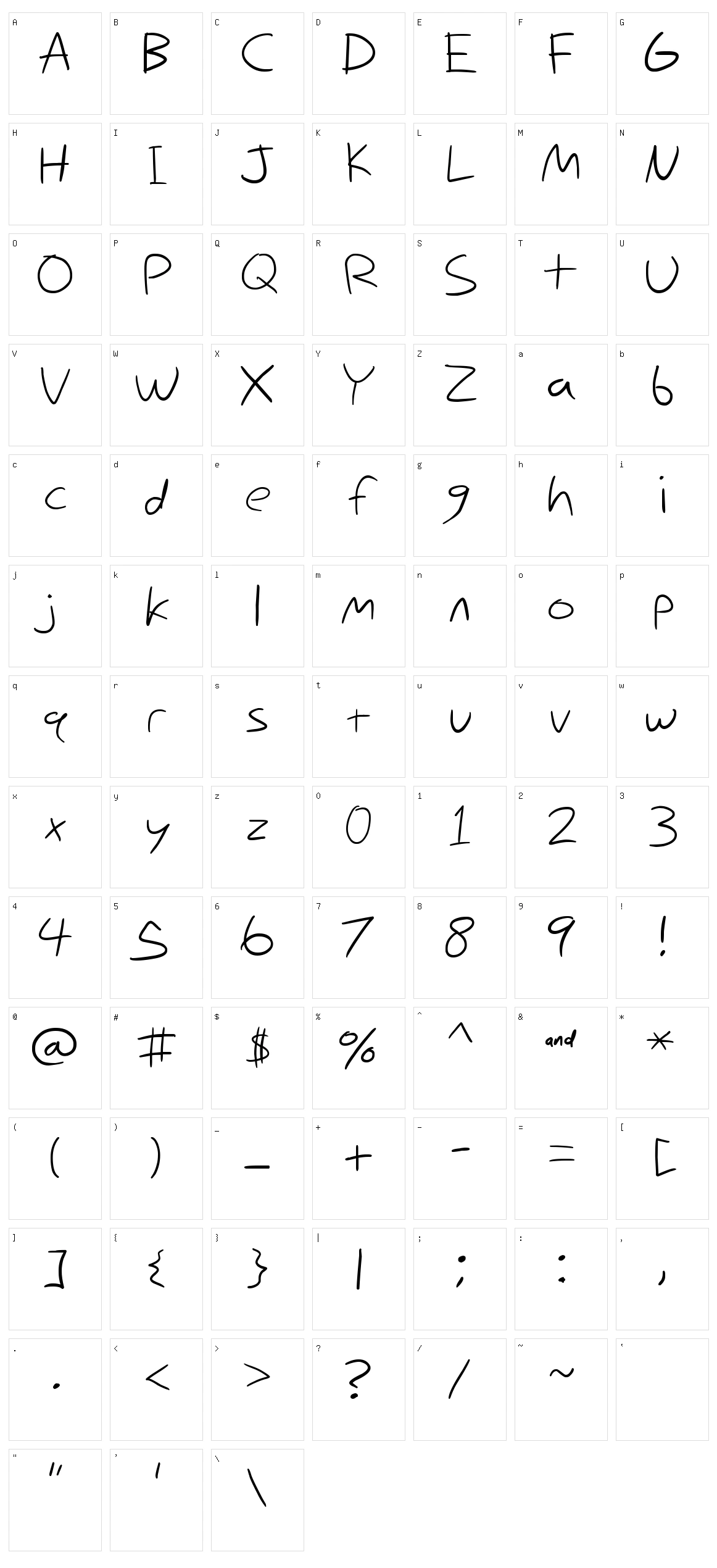
I made my handwriting into a font. Just in case any crazypants out
there wants to make it look like they're writing like me. I don't
know why you'd want to do that, but meh. This font includes all the
uppercase and lowercase letters, numbers, punctuation, more than a
few symbols, and quite a few little scribbly things that I stuck in
there for no reason. Check it out.